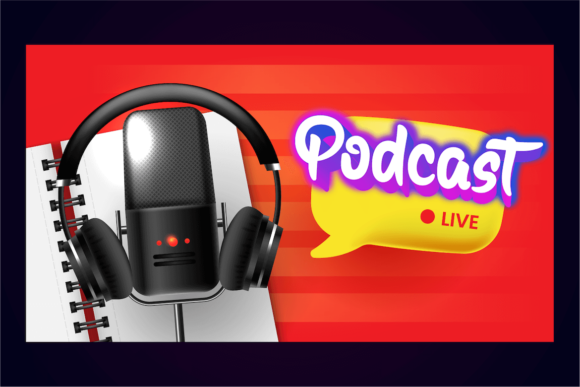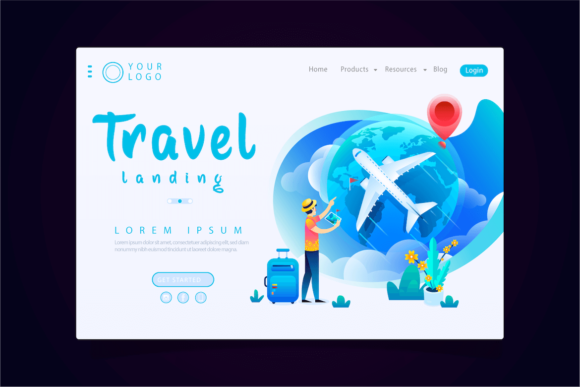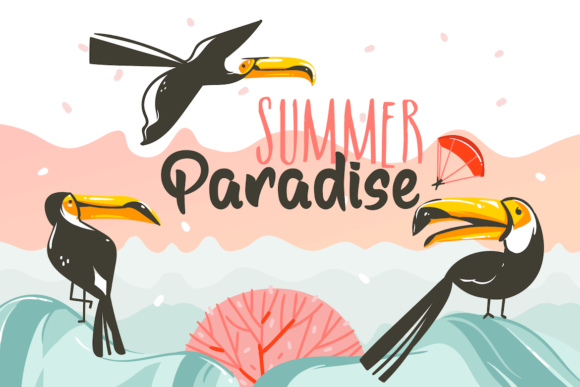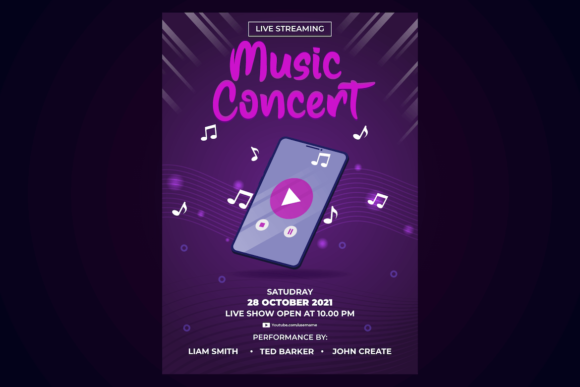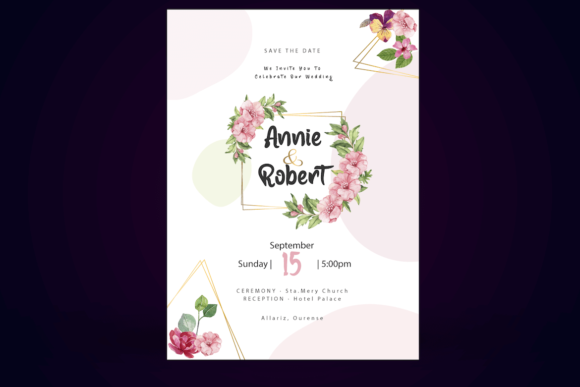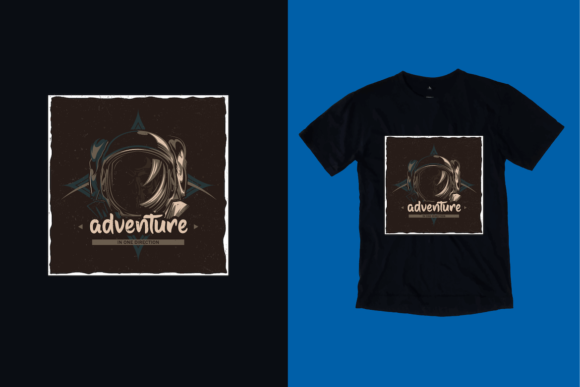
The Galette Font: A Trendy and Stylish Addition to Your Design Toolkit
I’ll never forget the time I was working on a project for a client who needed a unique and eye-catching font to make their brand stand out. I spent hours scouring the internet for the perfect font, but nothing seemed quite right. That was until I stumbled upon the Galette font. This trendy and stylish paint brushed handwritten font has been a game-changer for my designs, and I’m excited to share my experience with you.
A Personal Review of Galette
So, what do I love about Galette? Here are a few things that make this font a standout:
- ✨ Unique and original look that’s sure to grab attention
- ✅ Perfect for a wide range of crafty ideas, from letterheads and titles to stationery
- 💫 Highly legible, even at smaller font sizes
- 🎨 Great for designs that need a personal, hand-crafted feel
Of course, no font is perfect, and Galette does have a few small quirks:
- 🤔 Some users may find the font a bit too distressed or rough for certain projects
- ⚠️ Limited use of uppercase letters, which may not be ideal for all designs
The Story Behind Galette
Galette was designed by a team of creatives who wanted to create a font that would add a personal touch to any design. Inspired by the imperfections of hand-painted signs and the elegance of handwritten scripts, Galette is a unique and stylish font that’s perfect for a wide range of projects.
| What is Galette? | Galette is a trendy and stylish paint brushed handwritten font. |